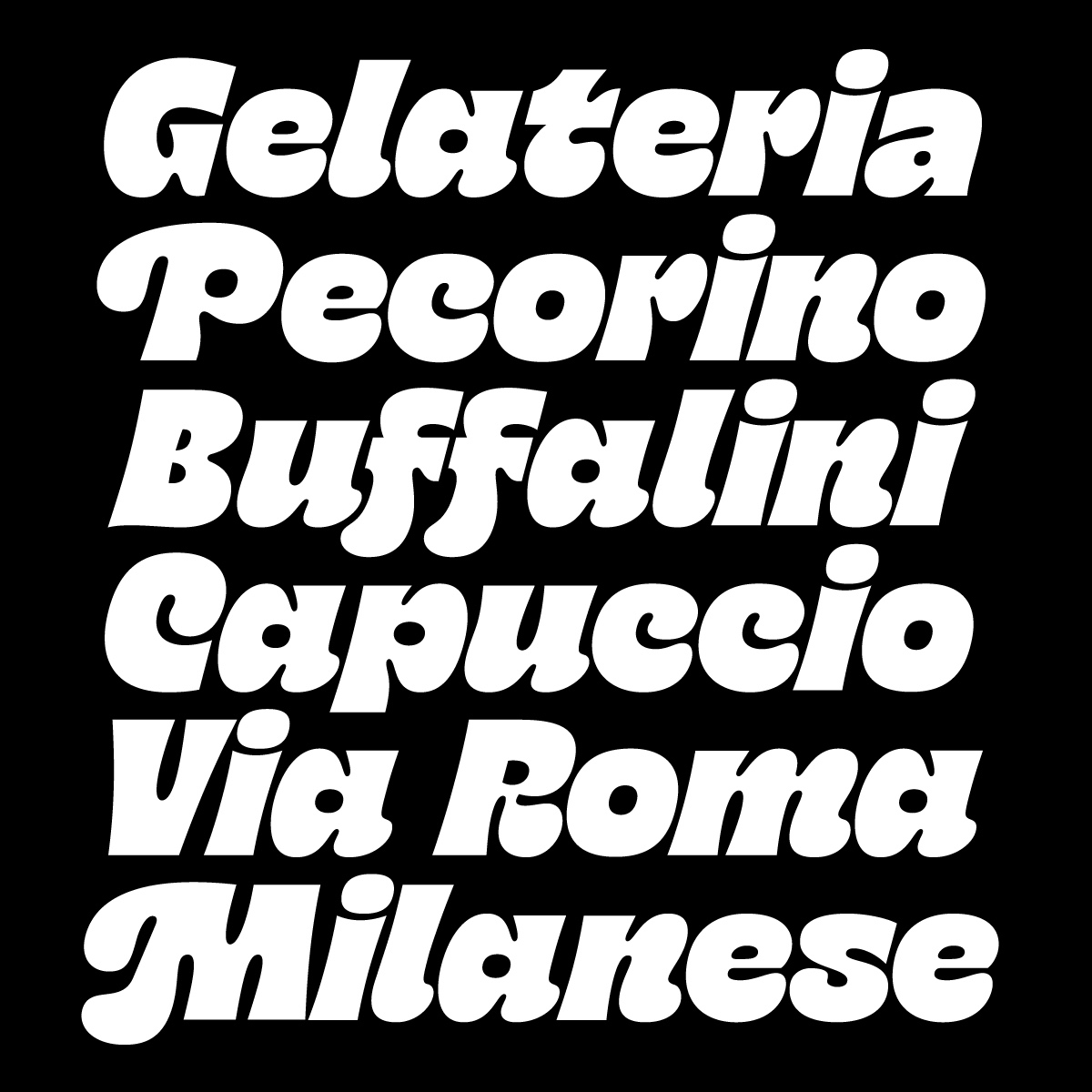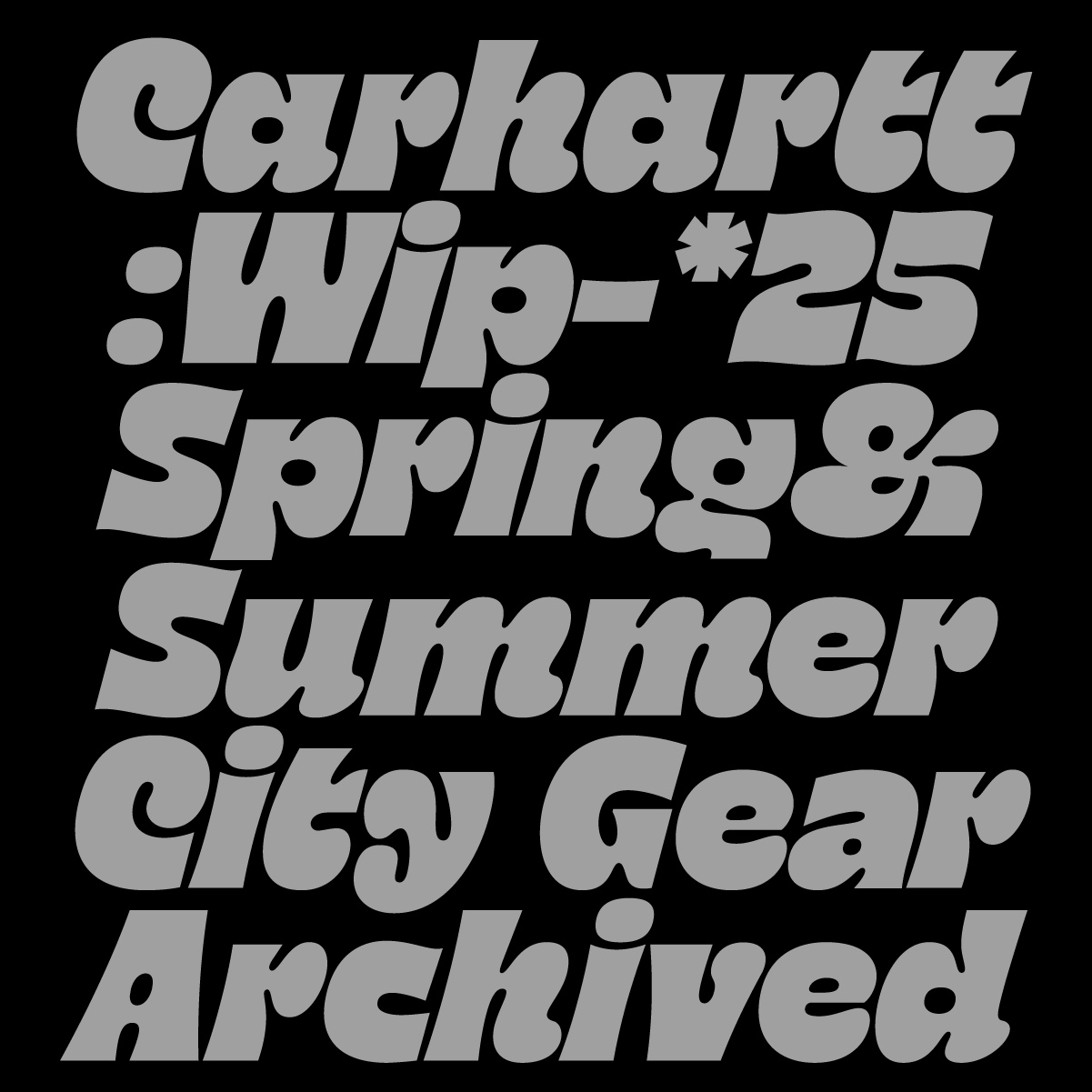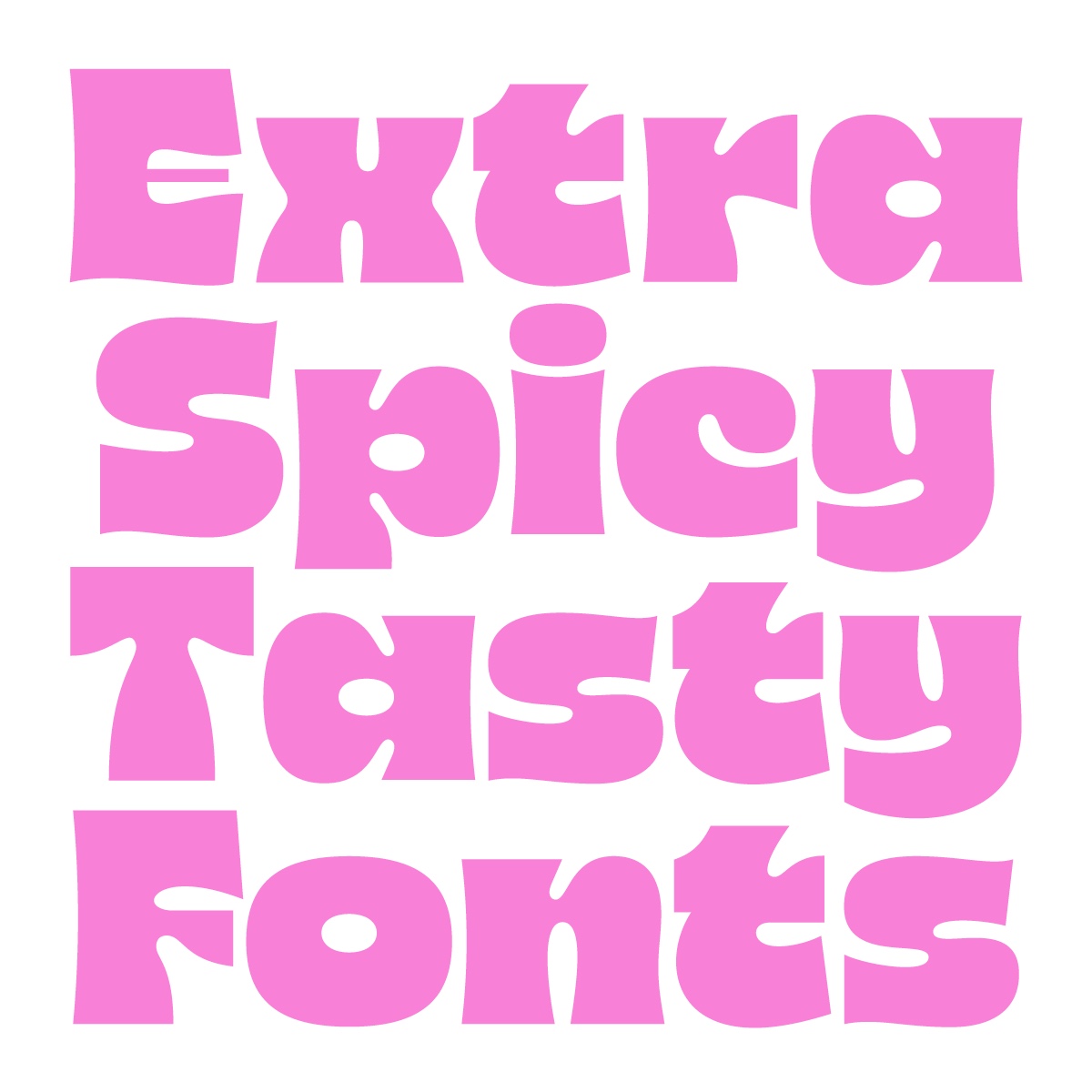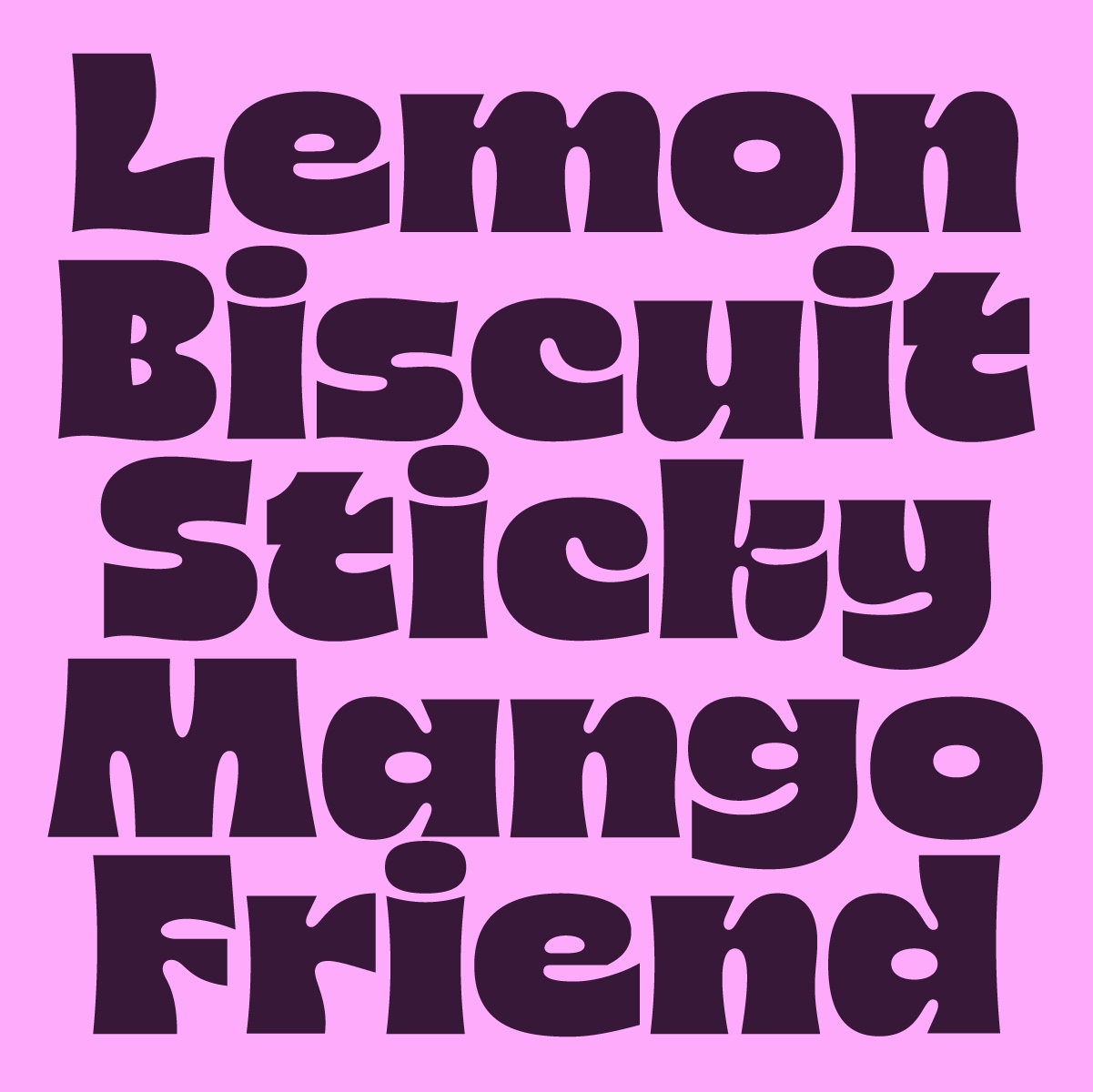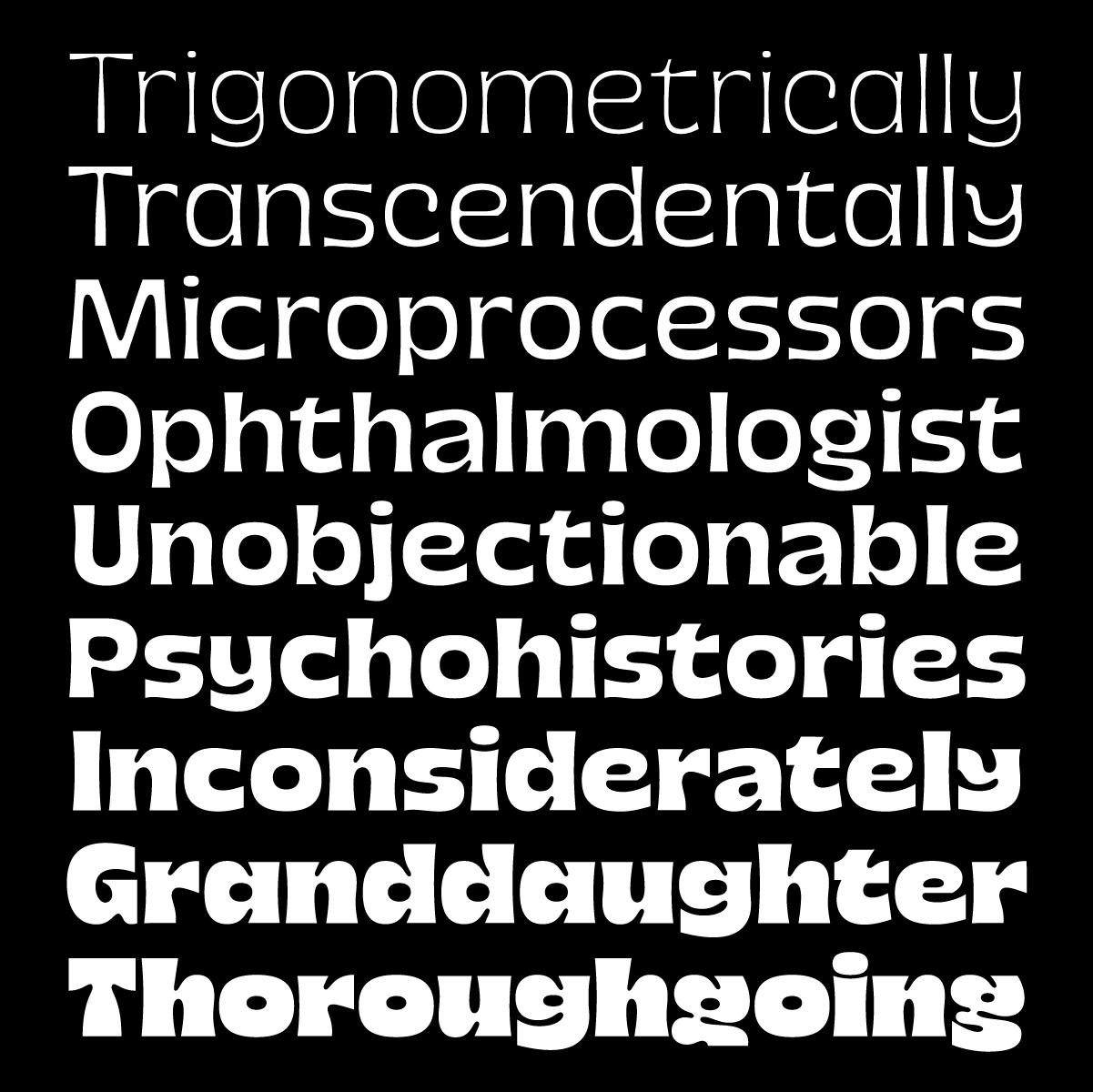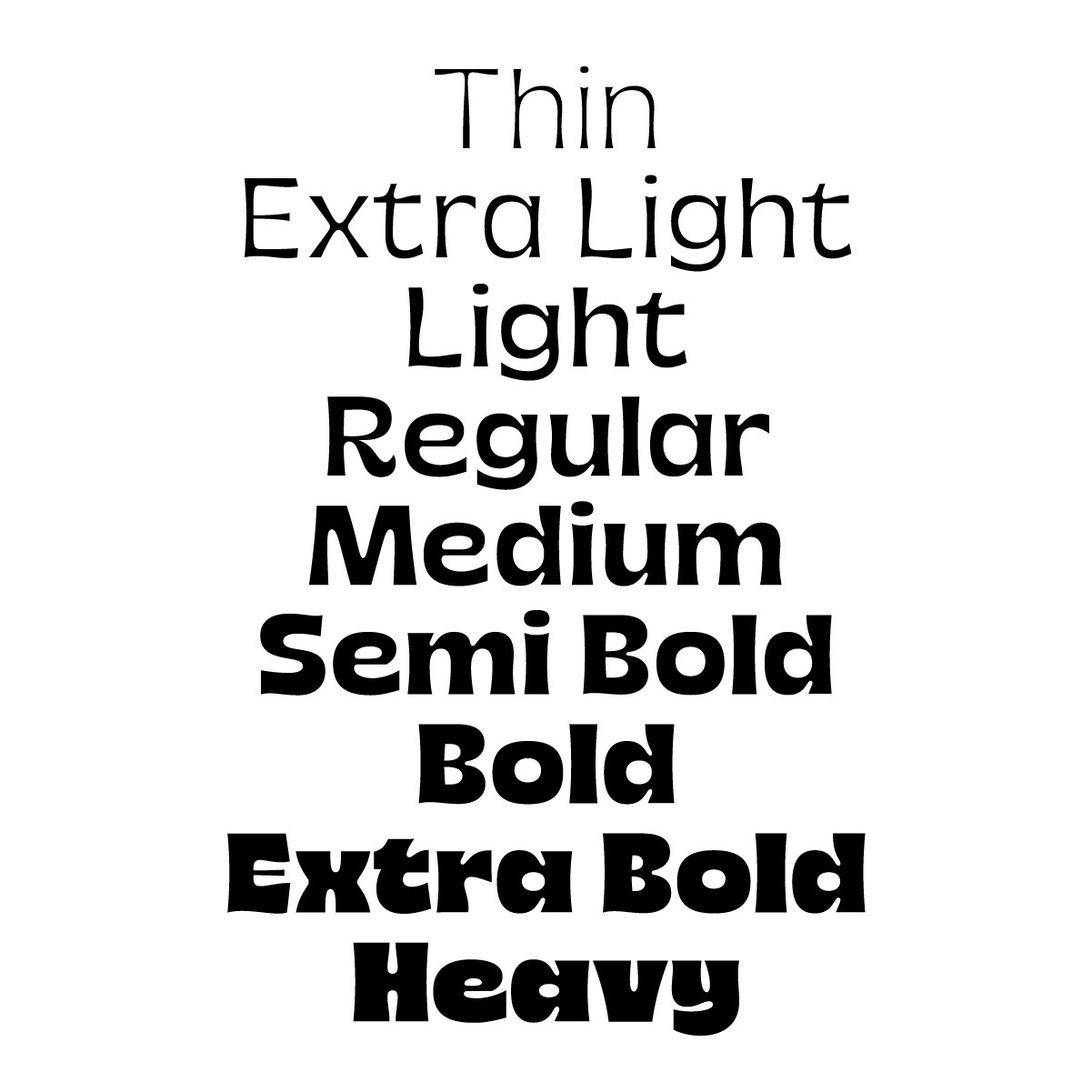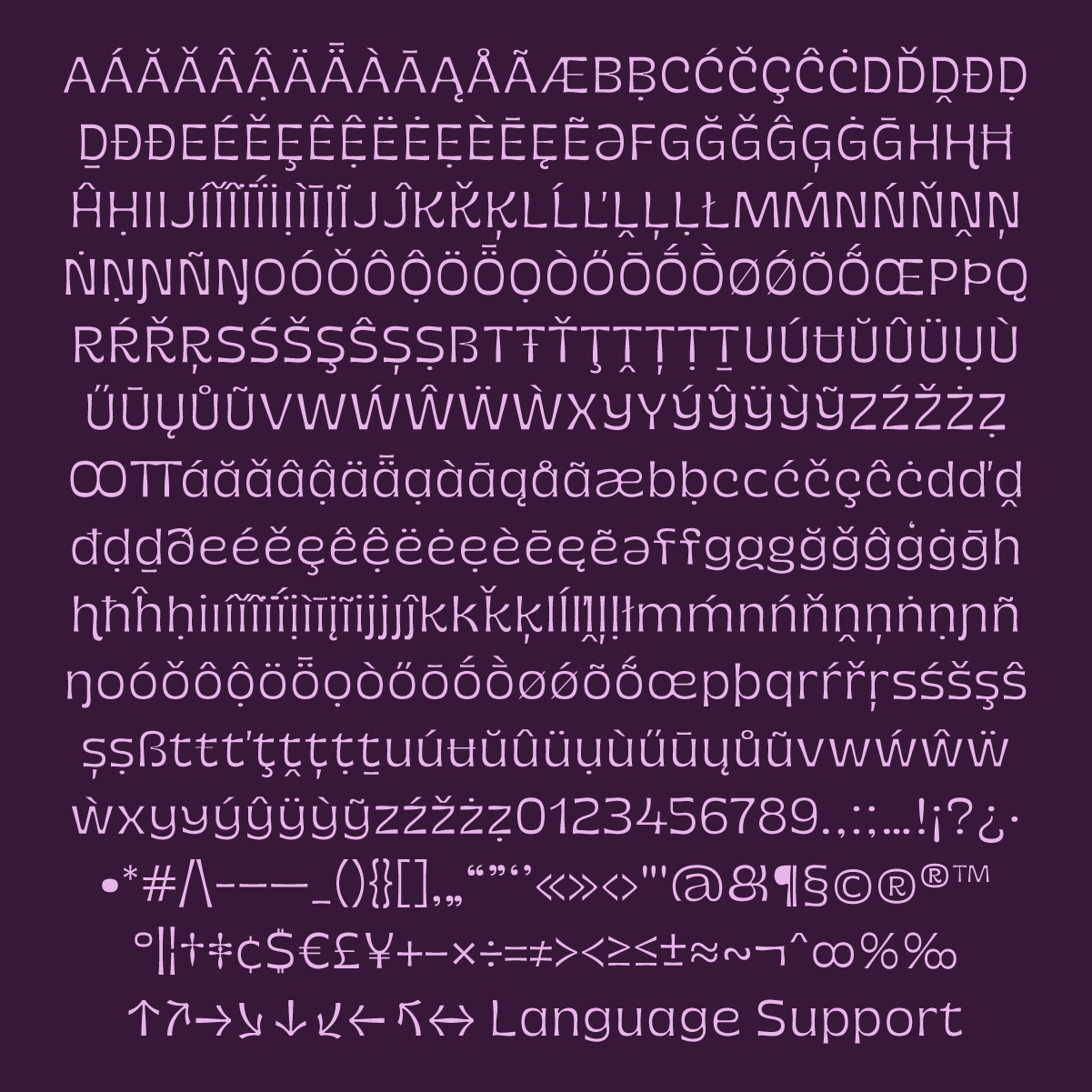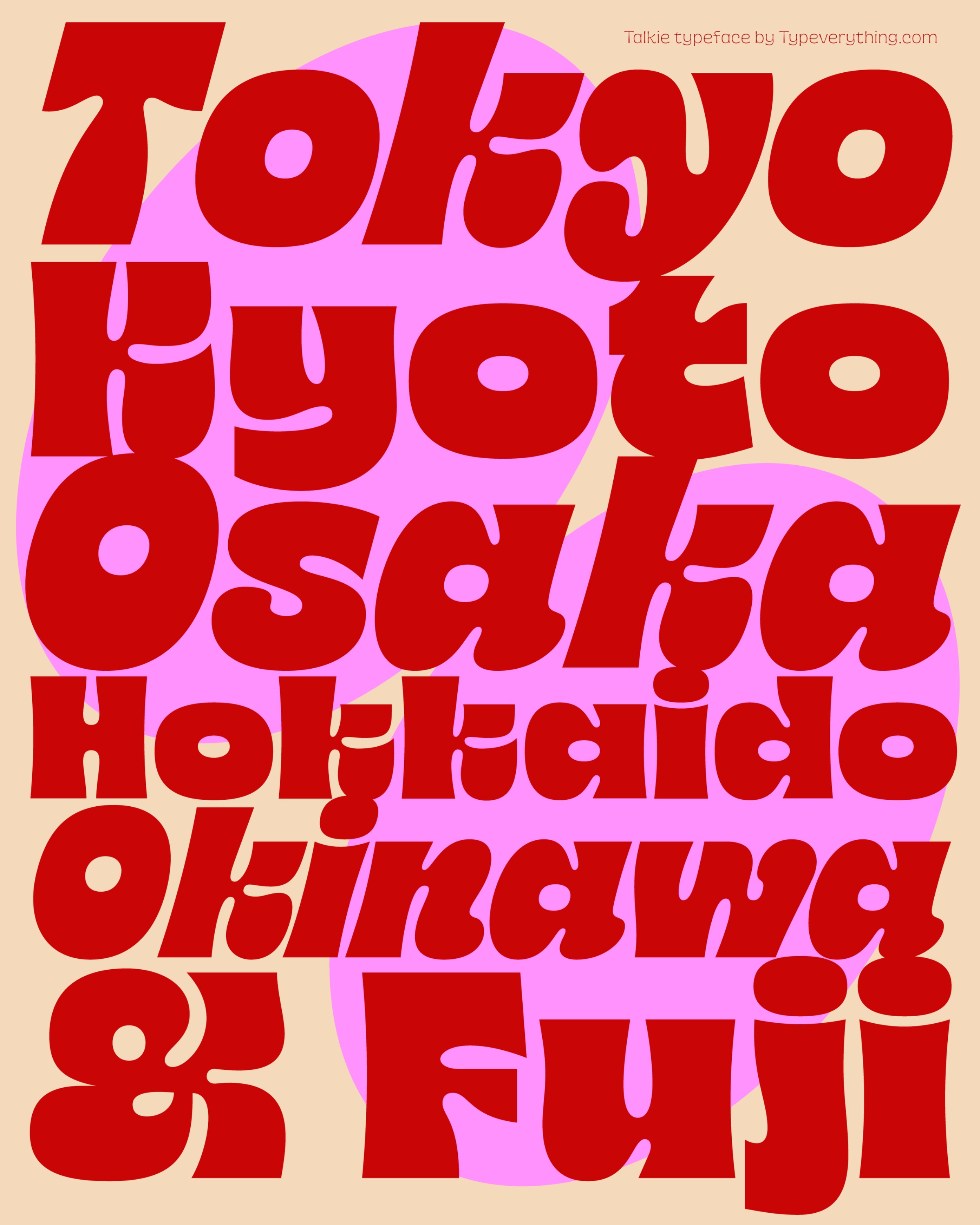
Talkie Typeface by Typeverything.com
Introducing Talkie, a fresh and dynamic typeface that's ready to infuse personality into your projects. With a versatile range of weights and a variable font option for full family packs, this typeface offers endless creative possibilities. If you're seeking a touch of contemporary flair, Talkie effortlessly adds vibrancy and character to any project, whether you're crafting captivating branding materials or packaging projects, Talkie is your go-to choice.